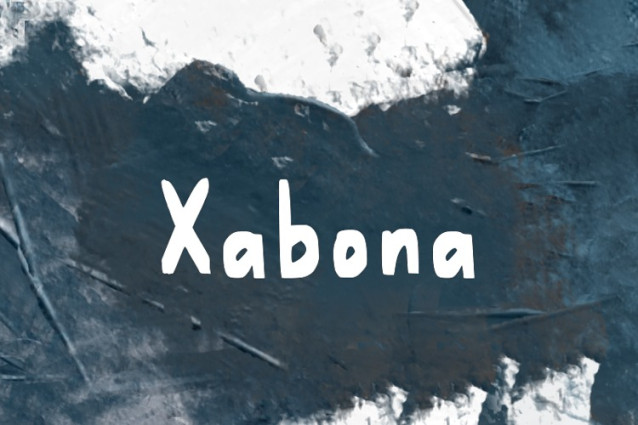
Xabona Font
Xabona Font, suitable for any design needs : logo, branding, modern advertising design, logos, poster quote, book / cover Title, editorial design, website / blog, card, t-shirts, and any hand-lettered needs.